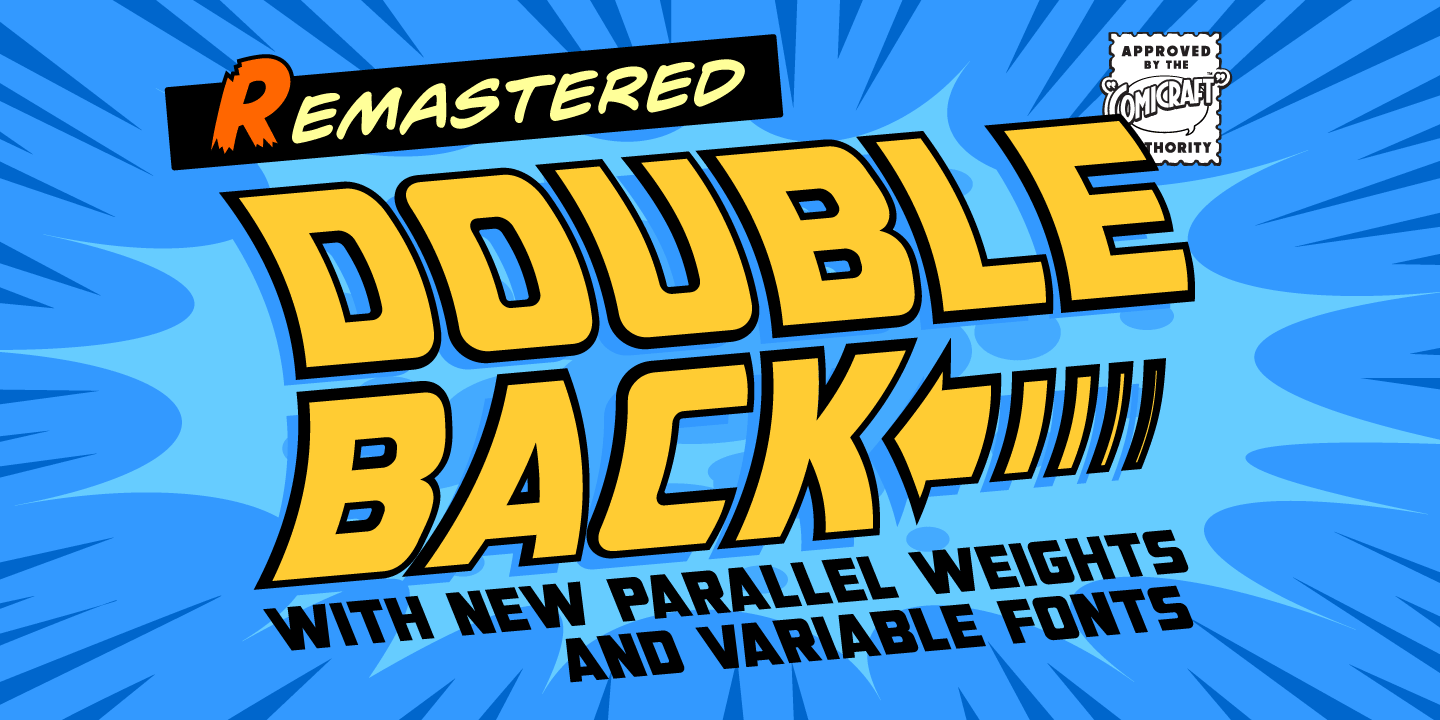
Double Back Font is perfect for bold headlines, impact advertising, sports branding, action movie titles, dynamic packaging, powerful logos, and high-energy visual communications. This commanding typeface brings dramatic impact and confident strength to attention-grabbing design projects.
Double Back Font is exciting because it delivers maximum visual punch with its bold, assertive letterforms that create immediate impact and convey strength while maintaining exceptional clarity and commanding presence across high-energy applications.
The Double Back Font family includes multiple weights and stylistic variations that amplify dramatic impact and visual strength. This powerful collection provides designers with commanding options for creating memorable and dynamically impactful brand experiences.
Double Back Font Free Download offers designers access to a powerfully crafted typeface that embodies strength, confidence, and dramatic visual impact. This commanding font features boldly designed letterforms with strong character presence that create immediate associations with power, energy, and dynamic action. The typeface showcases robust proportions and impactful aesthetics that enhance high-energy communications while maintaining professional functionality and broad accessibility. Its powerful character makes it particularly suitable for sports brands and action-oriented companies that require typography capable of conveying strength, confidence, and dynamic energy. Double Back Font delivers exceptional impact for applications where subtle fonts feel inadequate for powerful communications and high-energy brand positioning. The font's commanding appeal and dynamic aesthetic make it an essential tool for designers working on projects that require typographic expression of strength, action, and confident power that resonates with audiences seeking bold experiences and impactful visual communication.